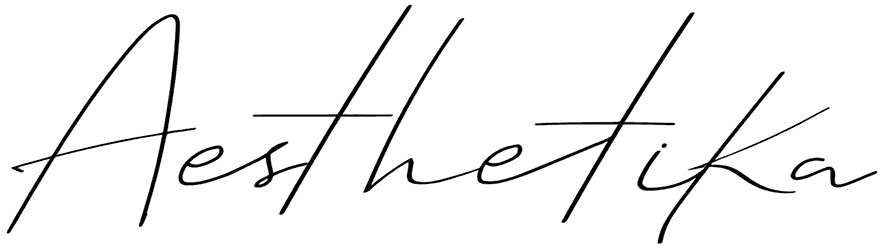
Aesthetika Font
When a company is trying to introduce itself to others using a person’s name, the best way is to use Aesthetika as a handwritten font. This font can be very similar to the signature of the company’s founder, and as a result, the name will remain in the minds forever.
So arm yourself with this signature font right now and use its narrow lines to implement creative ideas on greeting cards, personal letters, or anywhere that doesn’t require much legibility.